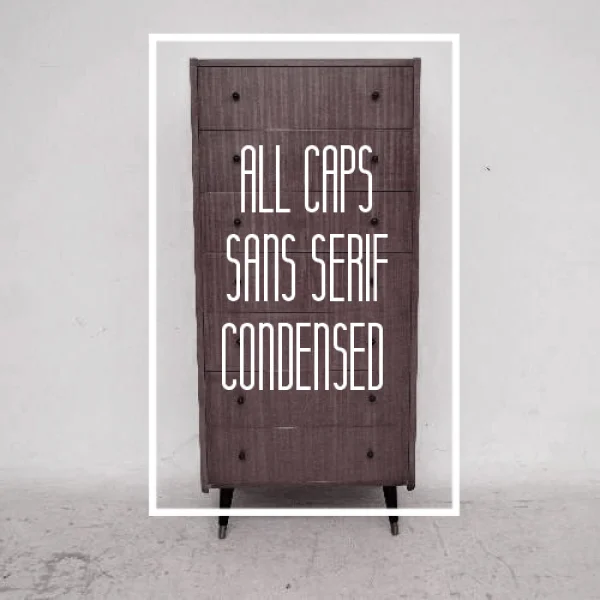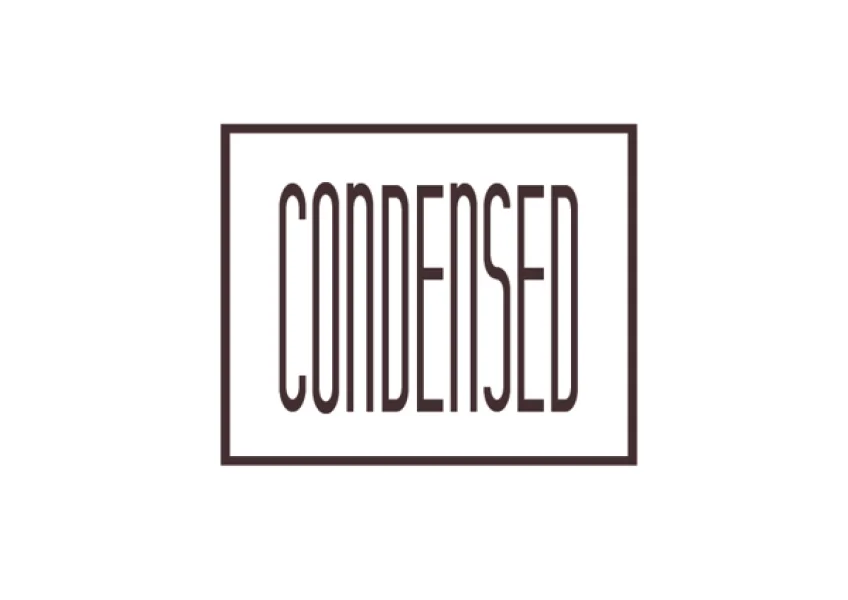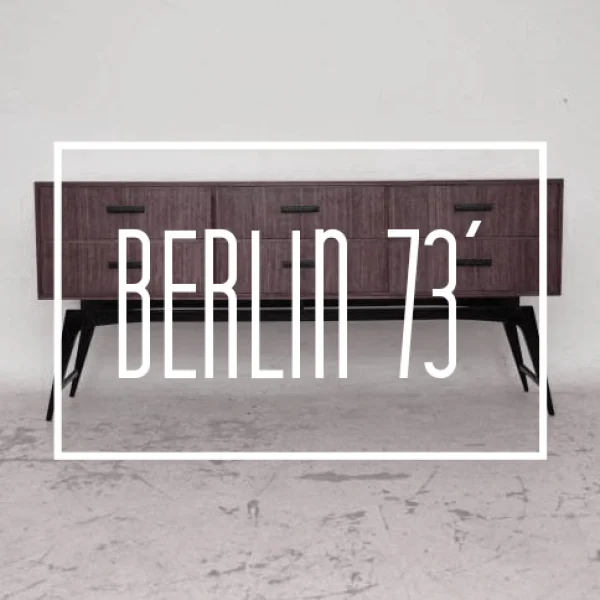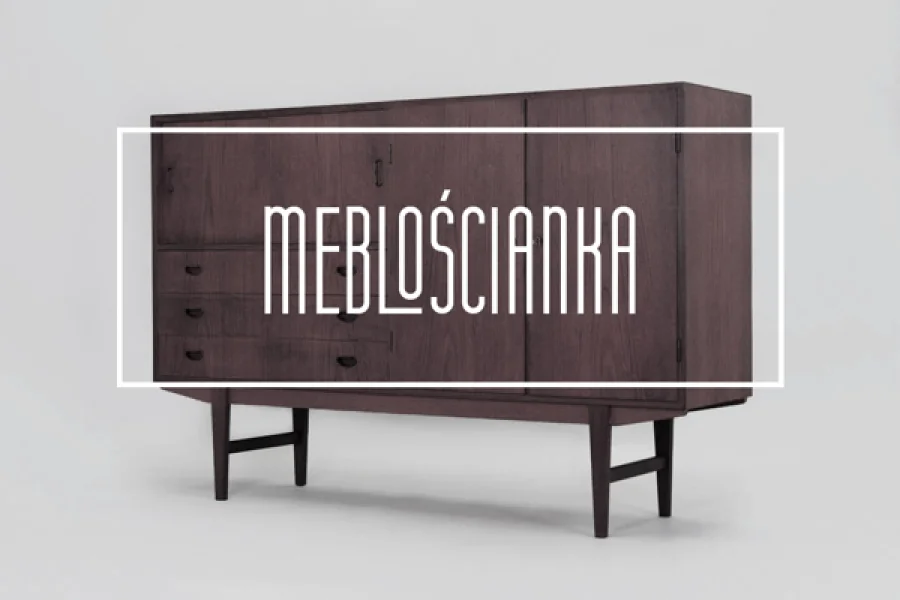
Komoda is a display, sans serif typeface suitable for headlines, editorial and poster design. This font is free for personal and commercial use. Enjoy!